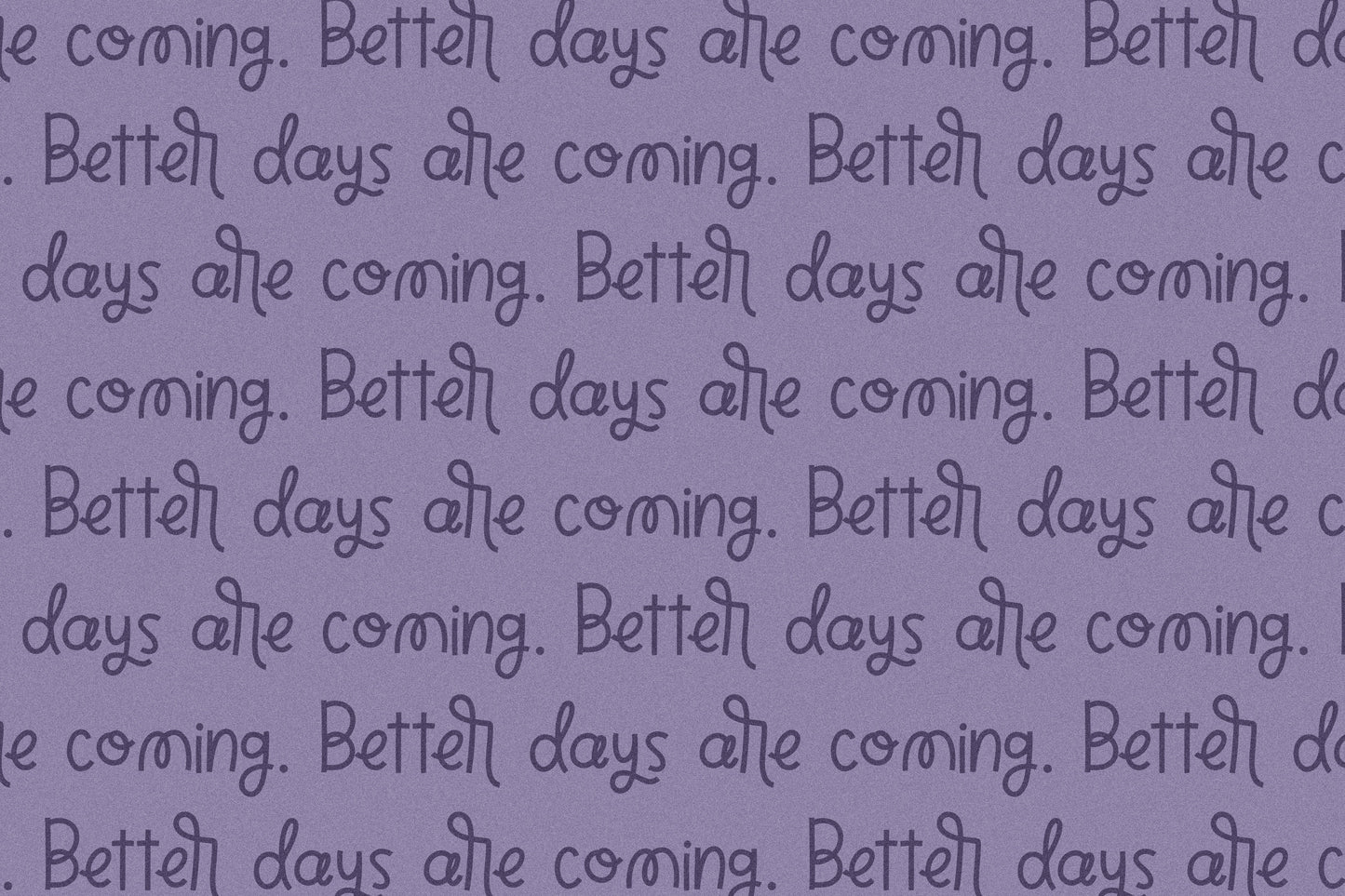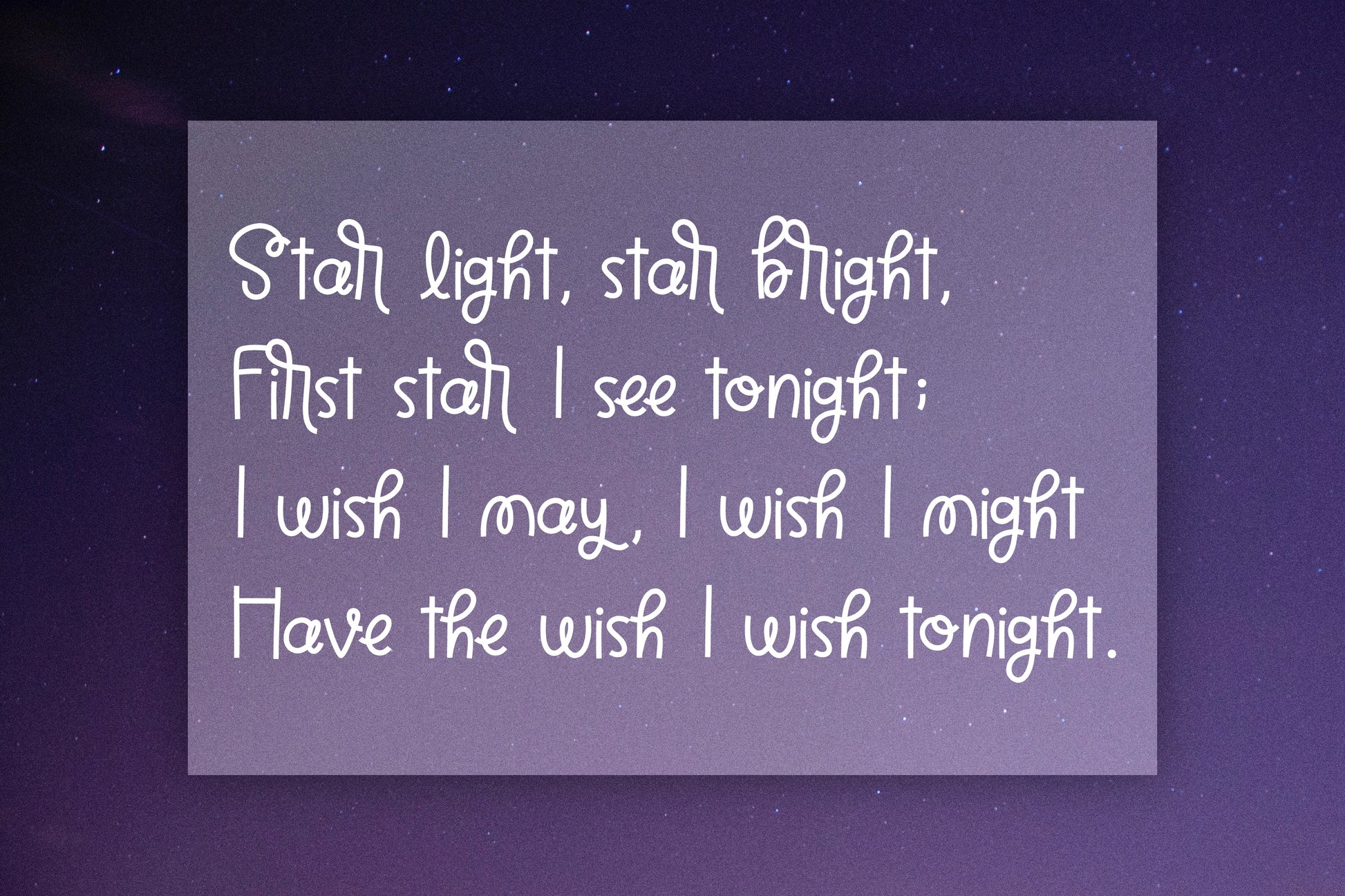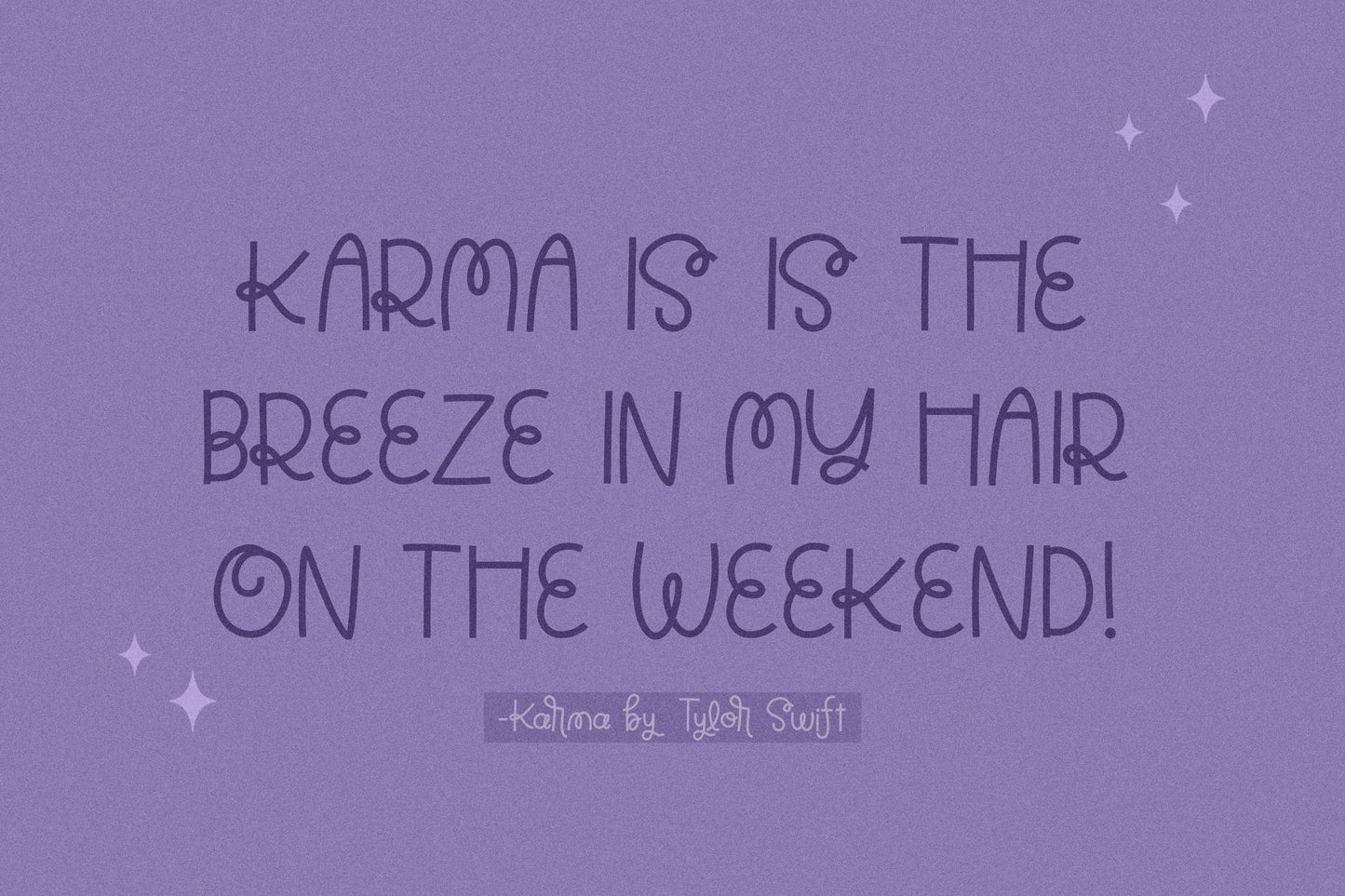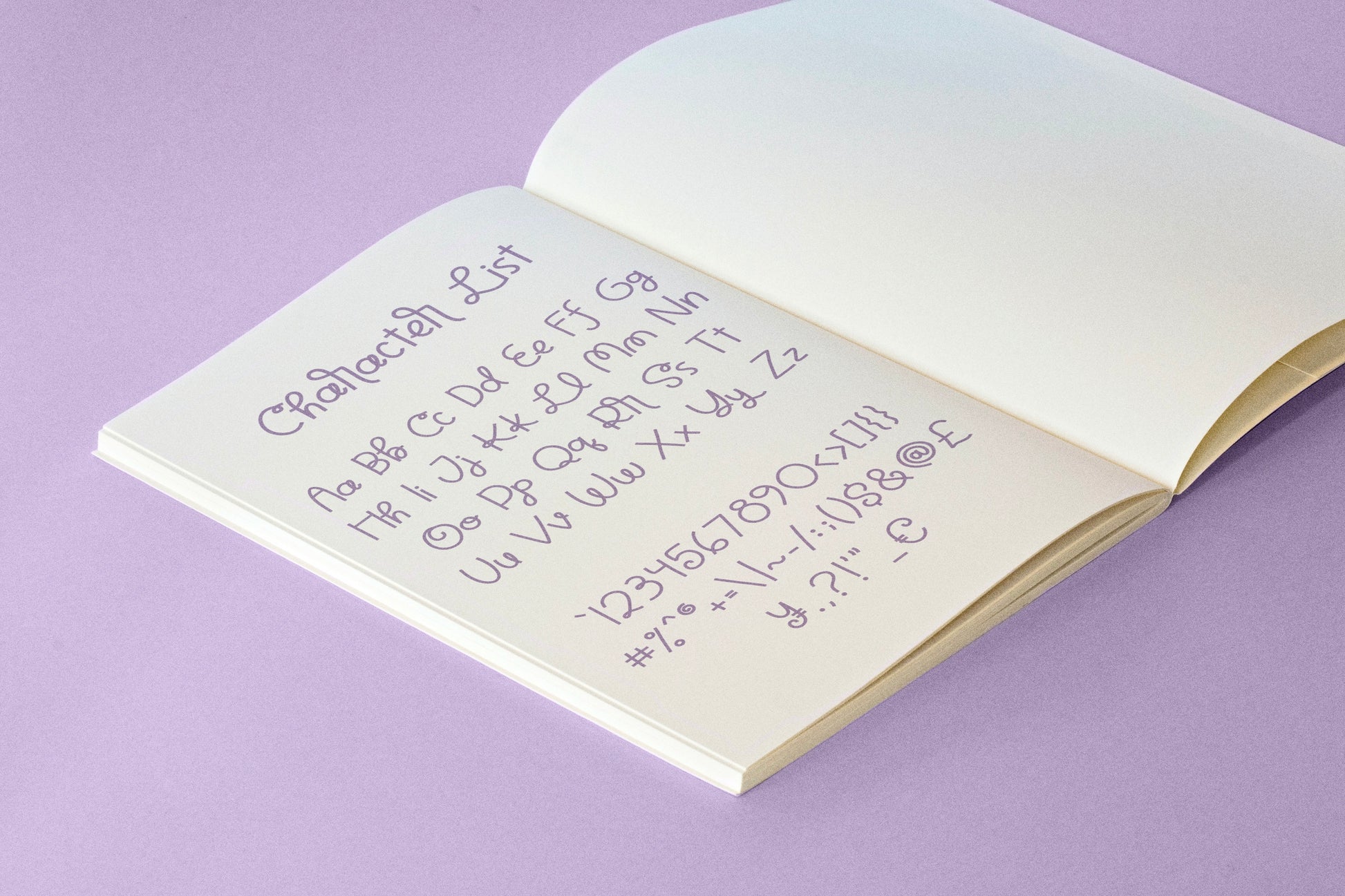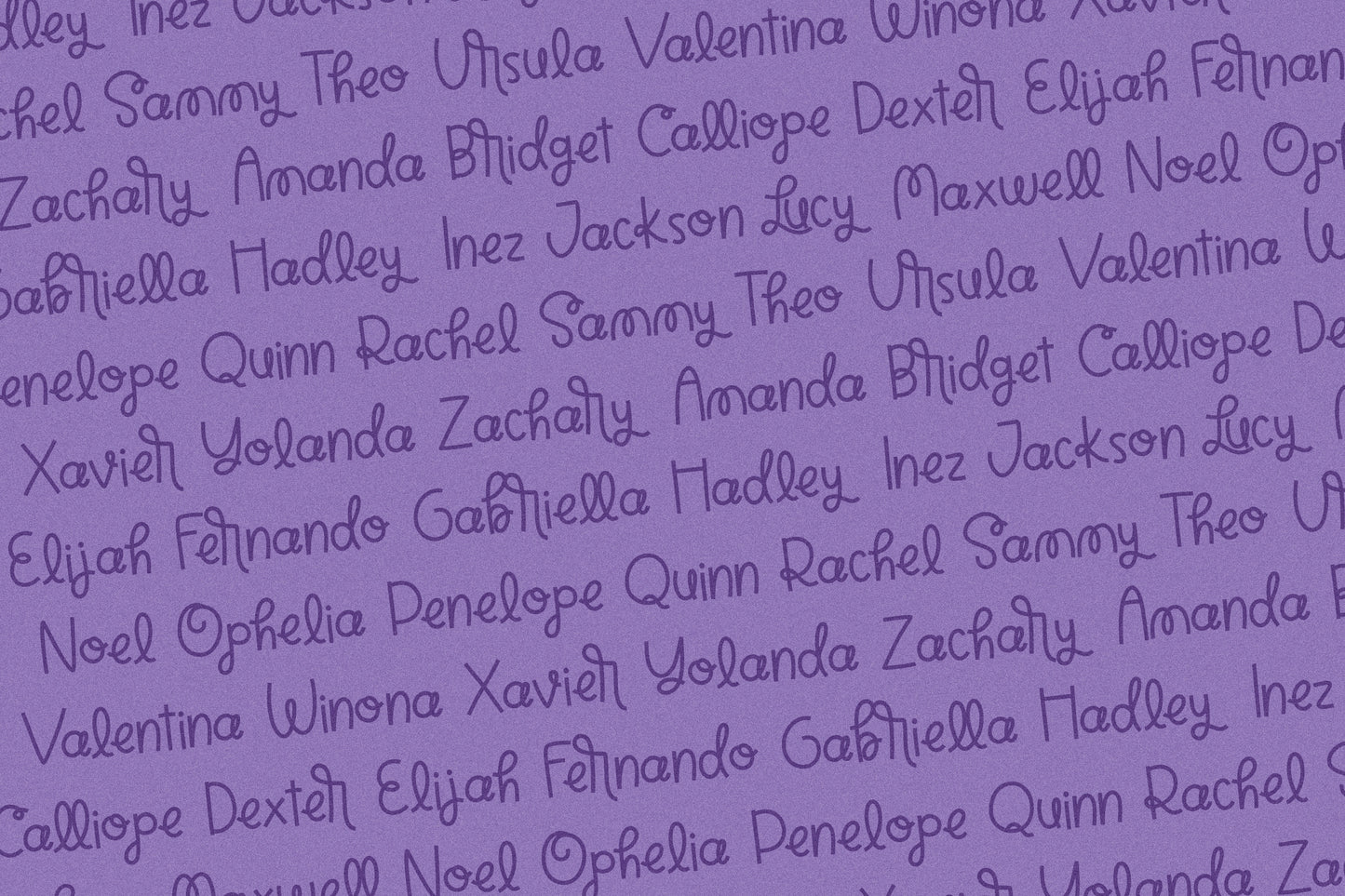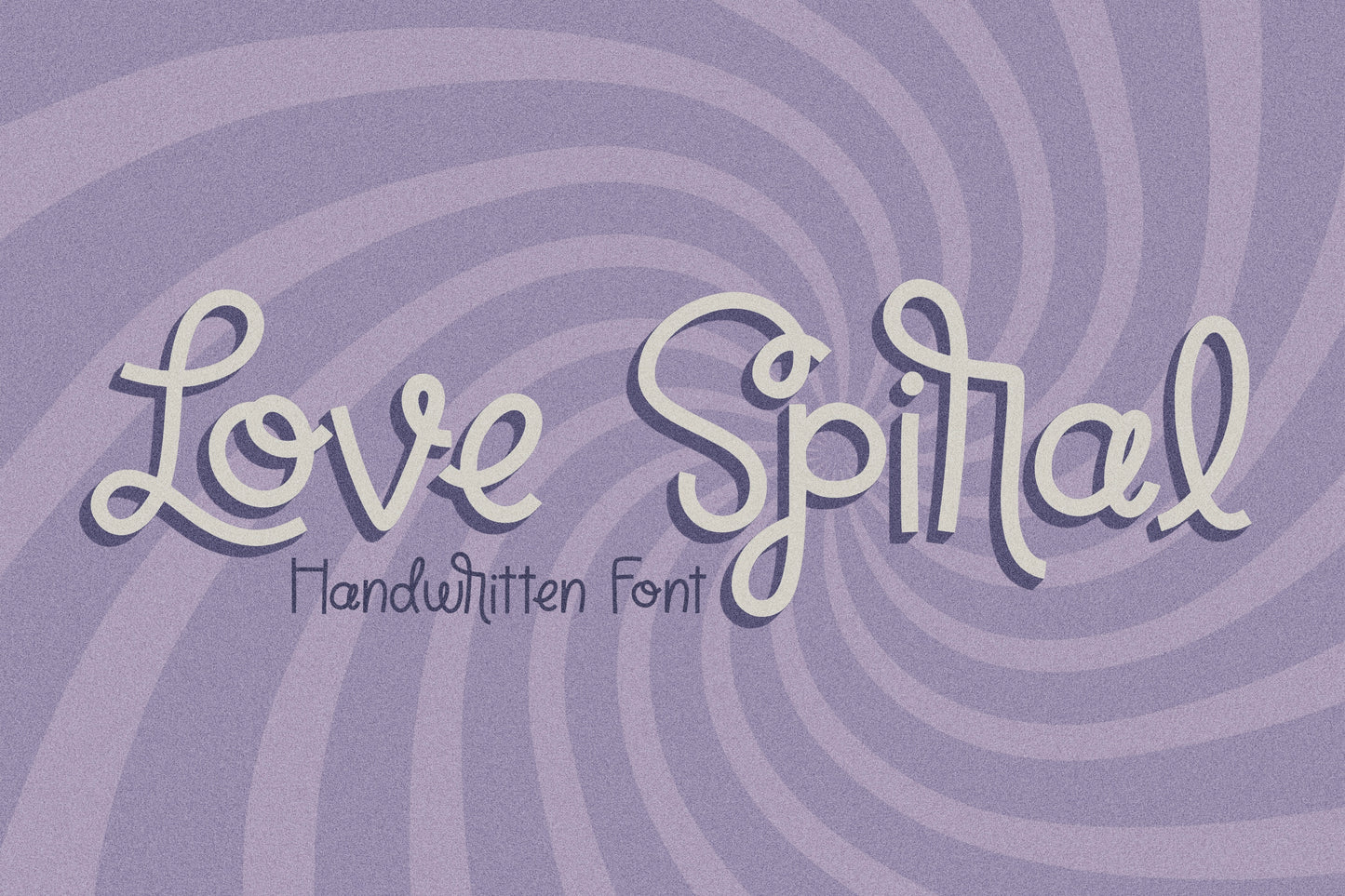
Love Spiral Handwritten Font
This is my Love Spiral handwritten/hand drawn font with lots of fun, playful curly letters and characters! This cute and quirky font is perfect for creating unique and fun designs such as: branding projects, posters, t-shirts, stickers, wall art, and any other design you can think of!